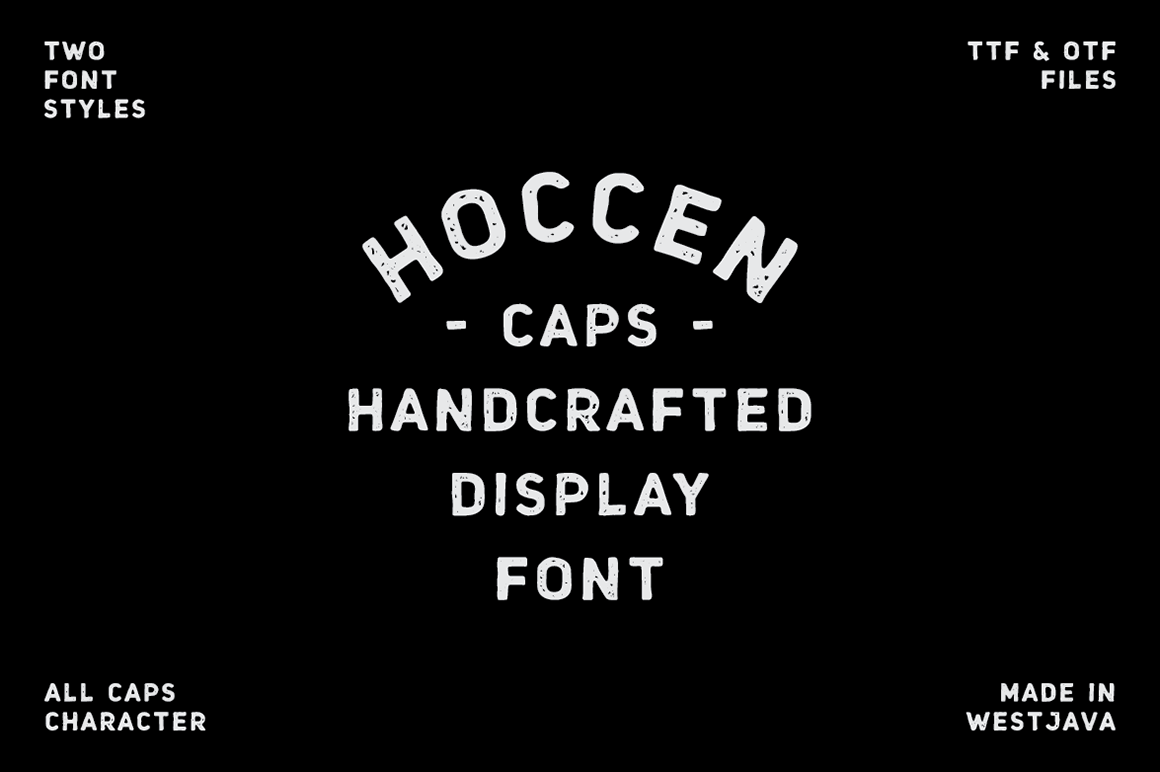
HOCCEN CAPS Display Font
HOCCEN CAPS is a very simple handcrafted font, it's rounded corner and wide stroke. It consists of allcaps letters, include regular and the stamp / textured font style. also you can check out my page on Instagram https://www.instagram.com/wawawsrynn/ to see how this font works for some other designs.
FONT use 2 styles
- HOCCEN CAPS ( regular )
- HOCCEN CAPS STAMP ( textured )